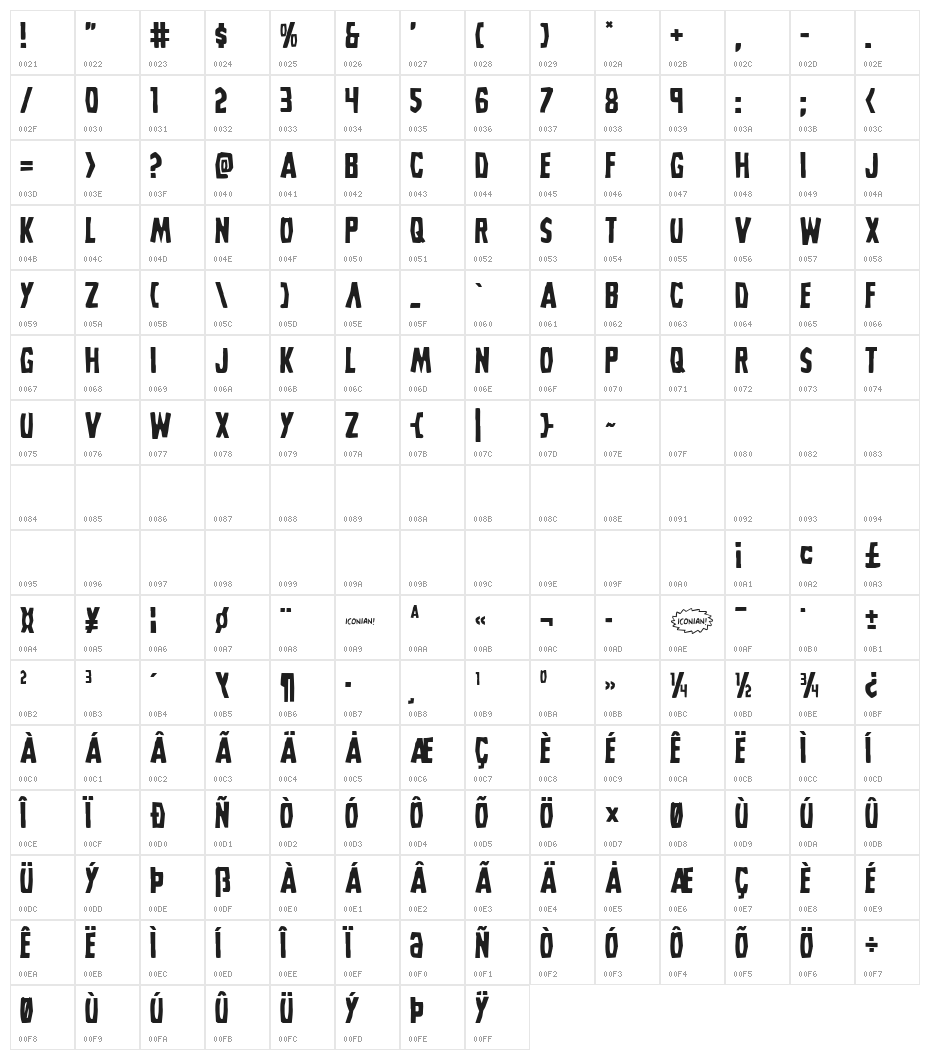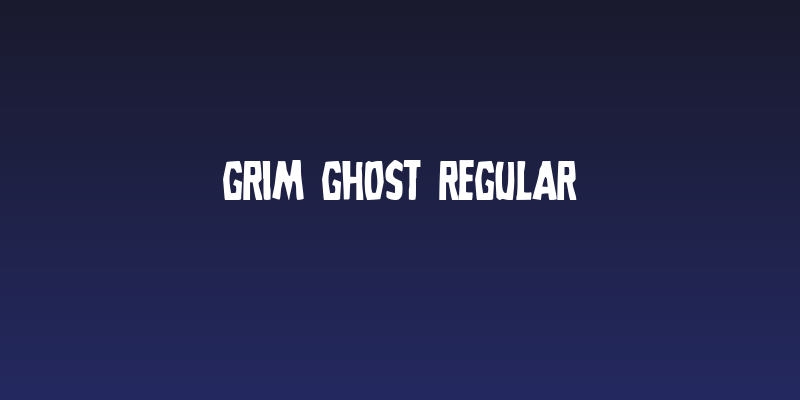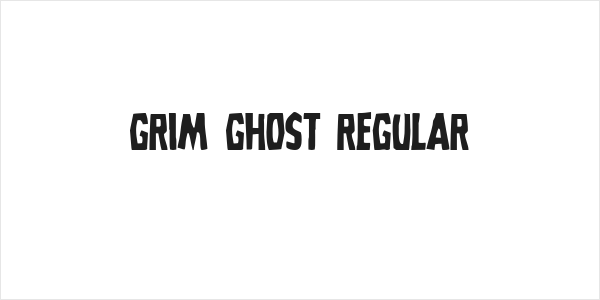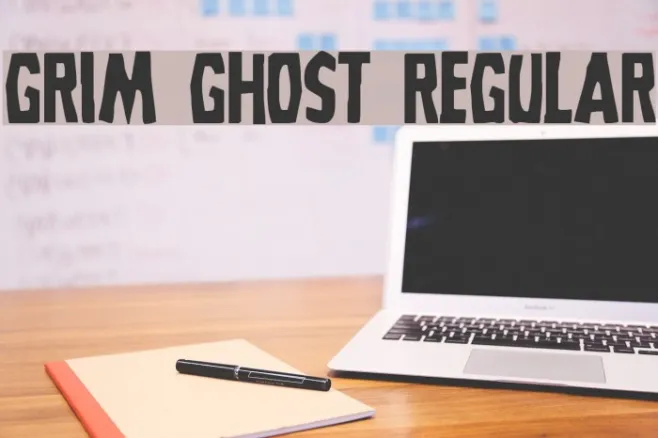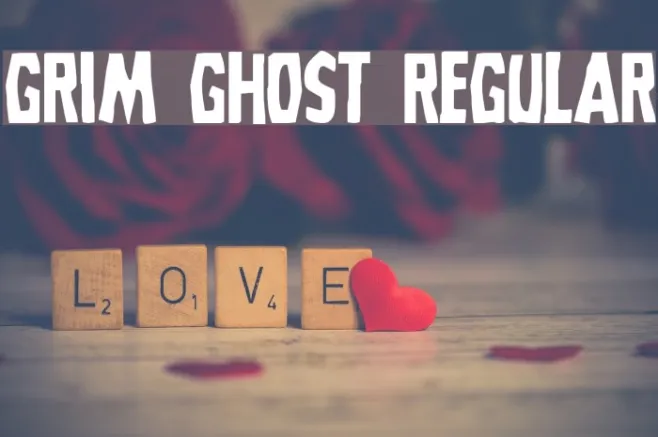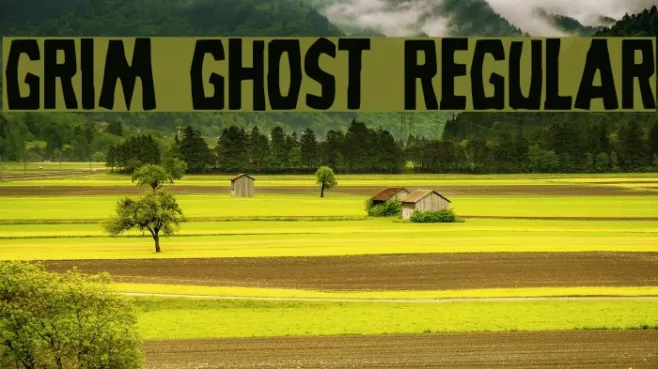
Grim Ghost Regular Font
Grim Ghost Regular Description
This font features a bold and rugged design with a distinctive, hand-drawn appearance. The characters have an uneven, slightly distorted look, giving them a unique and edgy feel. The uppercase letters are particularly striking, with sharp angles and irregular strokes that create a sense of movement and energy. The numbers and special characters maintain this dynamic style, ensuring consistency across all glyphs. This font's boldness and irregularity make it stand out, perfect for projects that require a strong visual impact.
| Proposed Projects | Ideal for posters, album covers, video game graphics, and any project needing a bold, eye-catching typeface. |